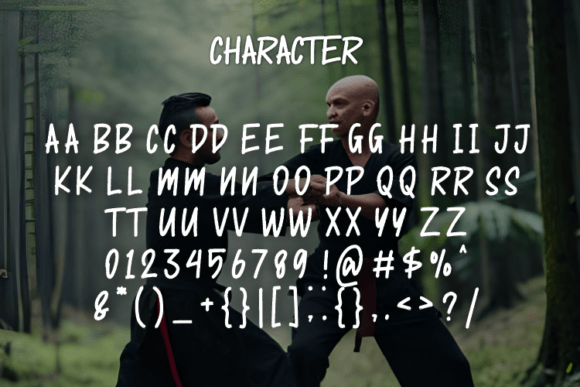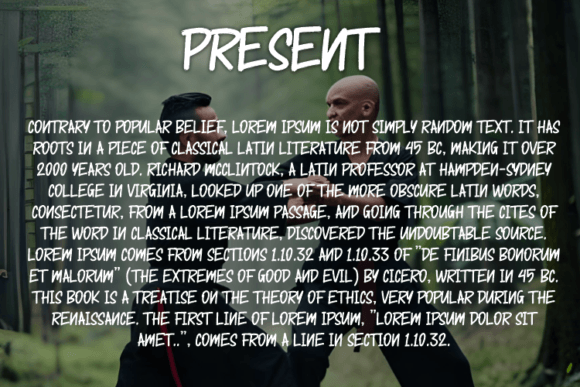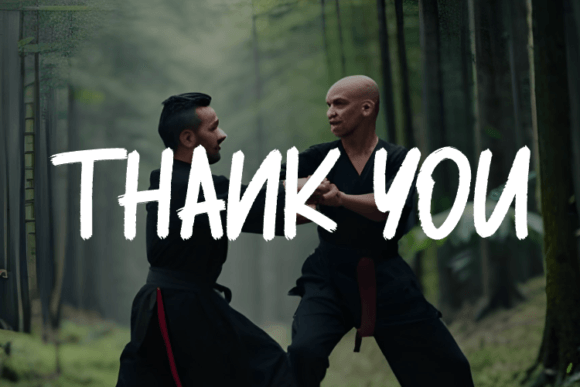
Introduction to Pencak Font
One font that’s been making waves in the design community is the Pencak Font. This trendy handwritten font exudes a contemporary atmosphere and impeccable form, inspired by timeless classic calligraphy. With its unique charm, it’s no wonder designers are flocking to it as a design resource to add elegance and class to their projects.
Key Features of Pencak Font
- Unique, handwritten style with a transparent background, ideal for creative projects that require a personal touch.
- Includes multiple font styles and weights, allowing for versatility in design and creative expression.
- Perfect for designers, artists, and creatives looking for a unique and high-quality font to elevate their work.
Honest Review: Pencak Font
- ✨ Unique and playful design aesthetic that adds a personal touch to any project
- ✨ High-quality font files that are crisp and clear, even at large sizes
- ✨ Supports a wide range of languages, making it a versatile design resource
- ⚠️ Limited font weights and styles, which may not be suitable for designers who need a wider range of options
Overall, I’m impressed with the Pencak Font. While it may not be perfect, its unique design aesthetic and high-quality font files make it a great addition to any designer’s toolkit. With a little creativity, I’m sure I can work around the limitations and make the most of this design resource.
Pencak Font
Pencak Font is ideal for creative projects such as logos, brochures, and social media graphics. Its unique style and versatility make it a great addition to any design project.